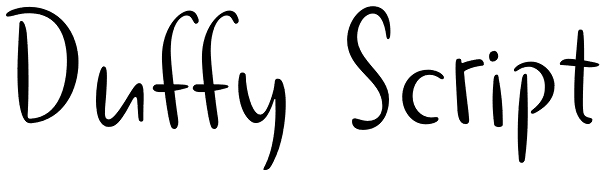
Duffy Script
An interpretation of the lettering of contemporary illustrator Amanda Duffy. Each font contains four glyphs for each character (including all numbers, punctuation, and symbols), which OpenType coding sets in “random” order for a subtle, natural...